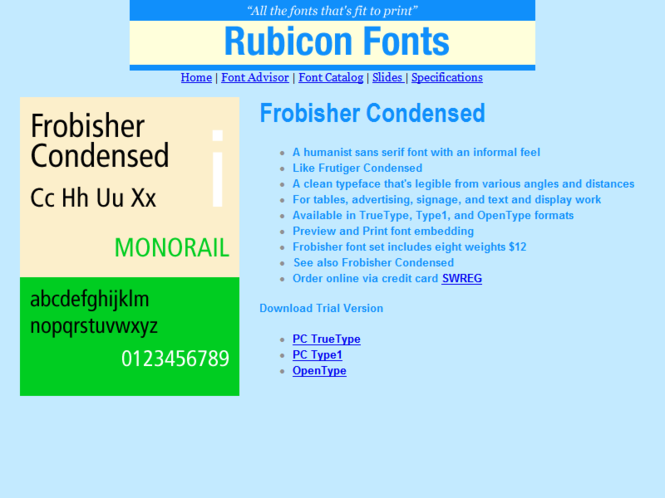
Rubicon Frobisher Condensed Fonts. Condensed humanist sans serif font with an informal feel. Like Frutiger Condensed. A clean typeface thatâ??s legible from various angles, sizes, and distances. Fit more text into restricted spaces without losing legibility. Great for tables, advertising, signage, and display work. Use in any size. Accurate and hinted, matching font metrics, standard character set, kerning pairs.